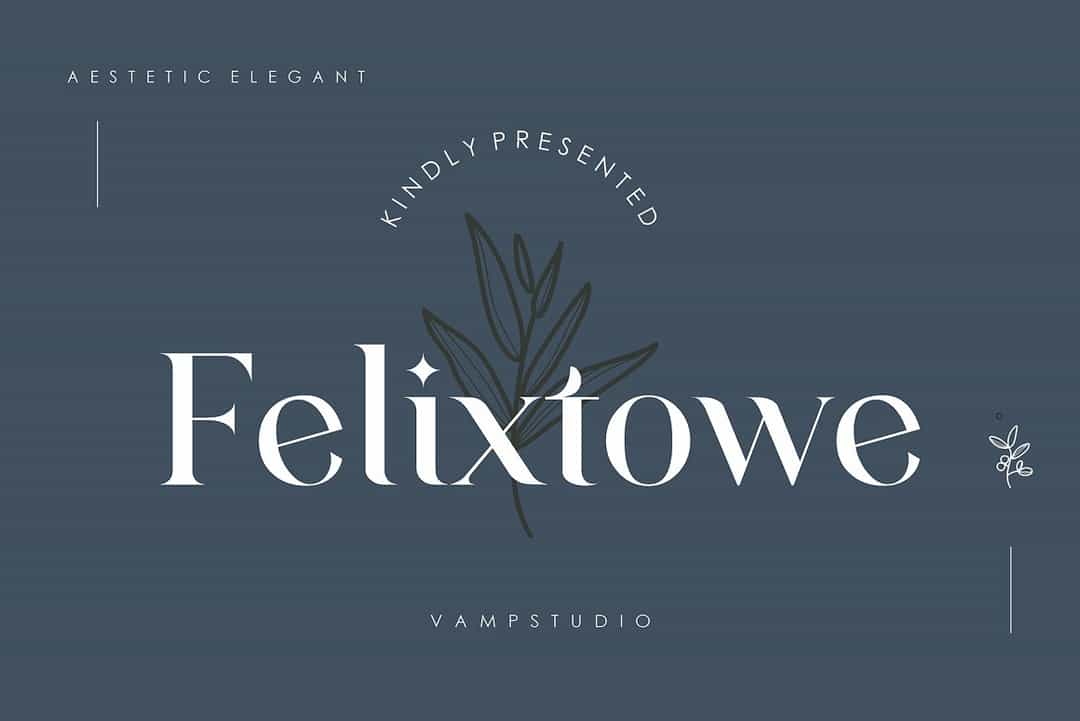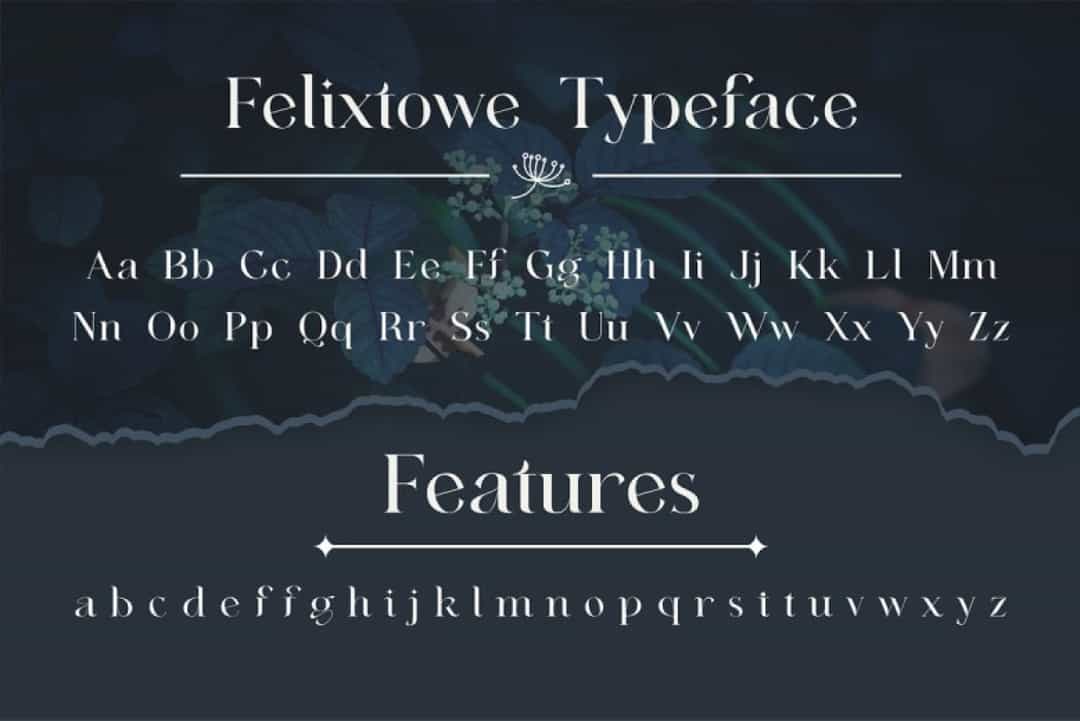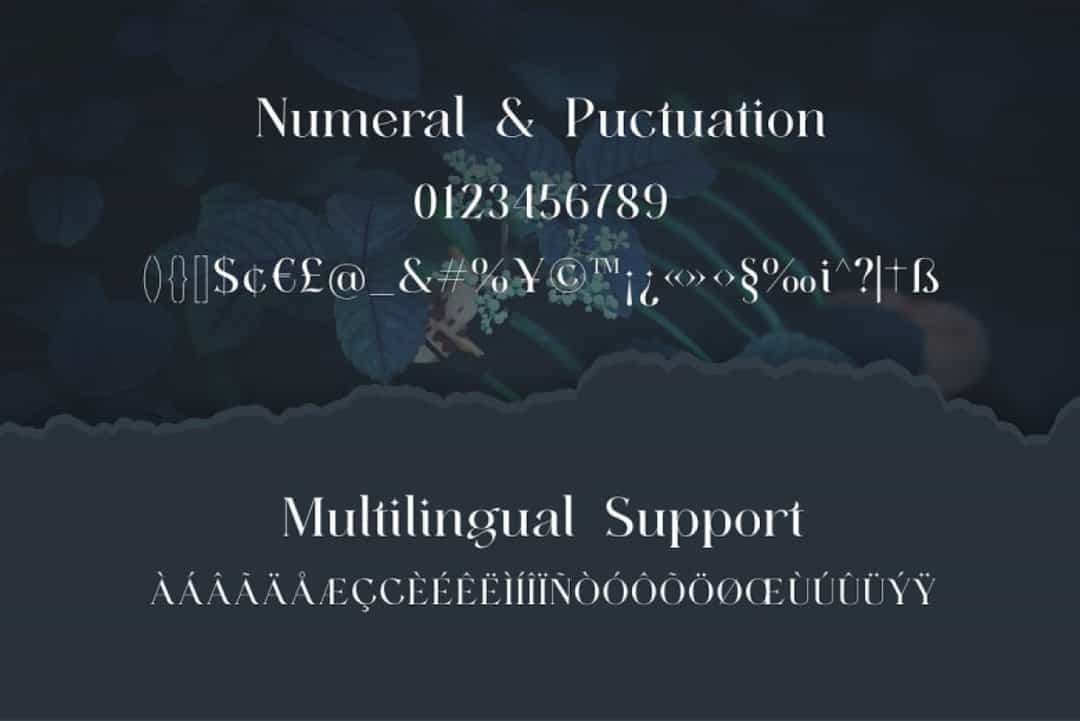
Discover Felixtowe Font, part of the Serif collection—a versatile and unique font perfect for adding a personal touch to your projects. Download it for free and enjoy crafting designs with style, from invitations to social media posts. This font is available exclusively for personal use, giving you the freedom to create without limits. Unlock your creativity with Felixtowe Font today!
Felixtowe is an elegant and modern serif typeface, created by skilled hands to be sleek, simple, and sophisticated – ideal for logos, branding projects wedding designs and social media posts. Additionally, Felixtowe makes for great advertising packaging product labels product designs photographs watermark invitations stationery stationary other projects which require writing with pen.